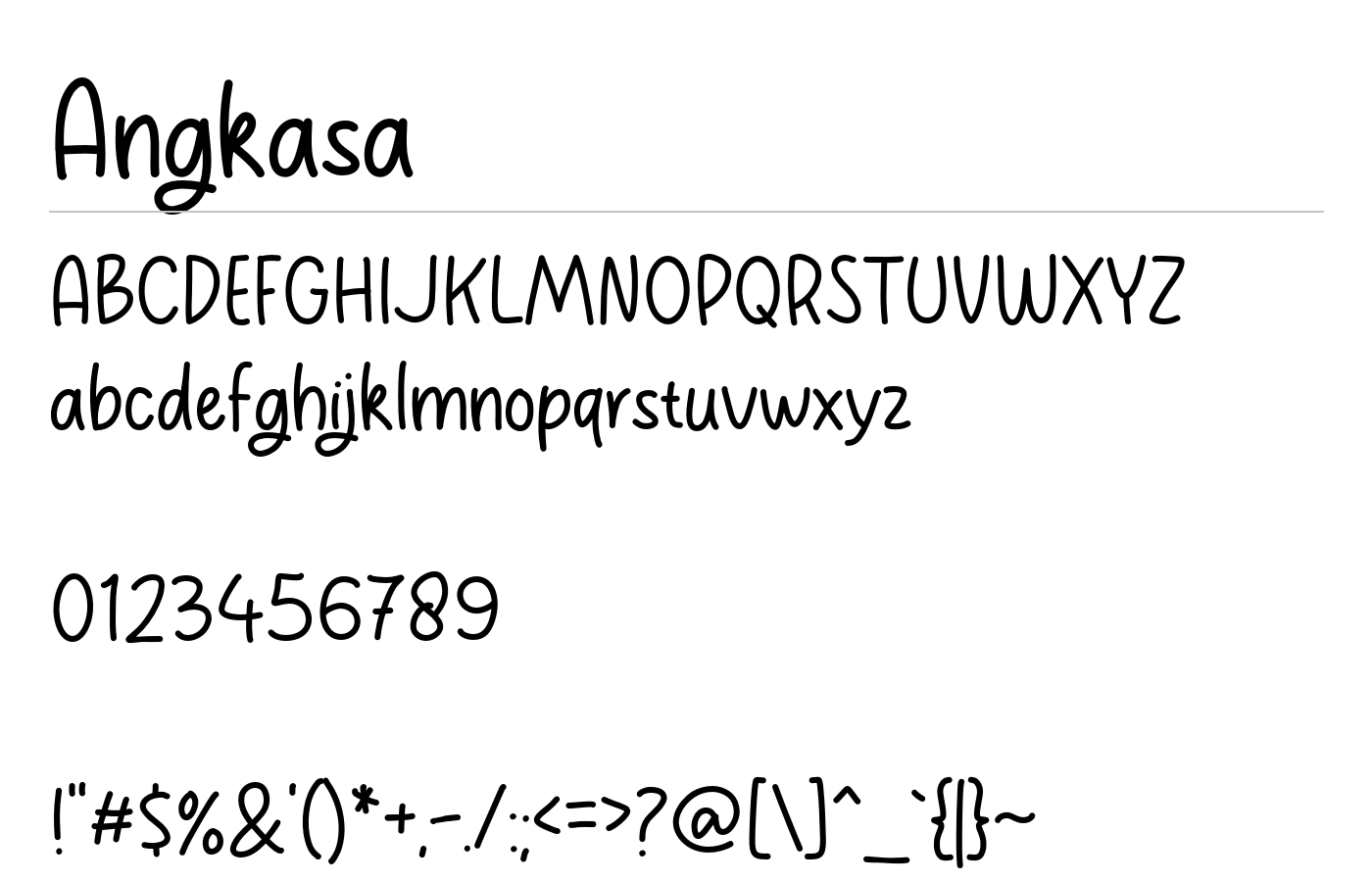
Angkasa is a playful and casual handwritten font with a light weight and tall, narrow letterforms. It features a friendly, informal style with smooth, rounded strokes and a slightly quirky character, making it ideal for designs that want a personal, approachable feel. This font works well for children's books, informal branding, and creative projects that benefit from a warm, human touch.
Angkasa Font
About Angkasa Font